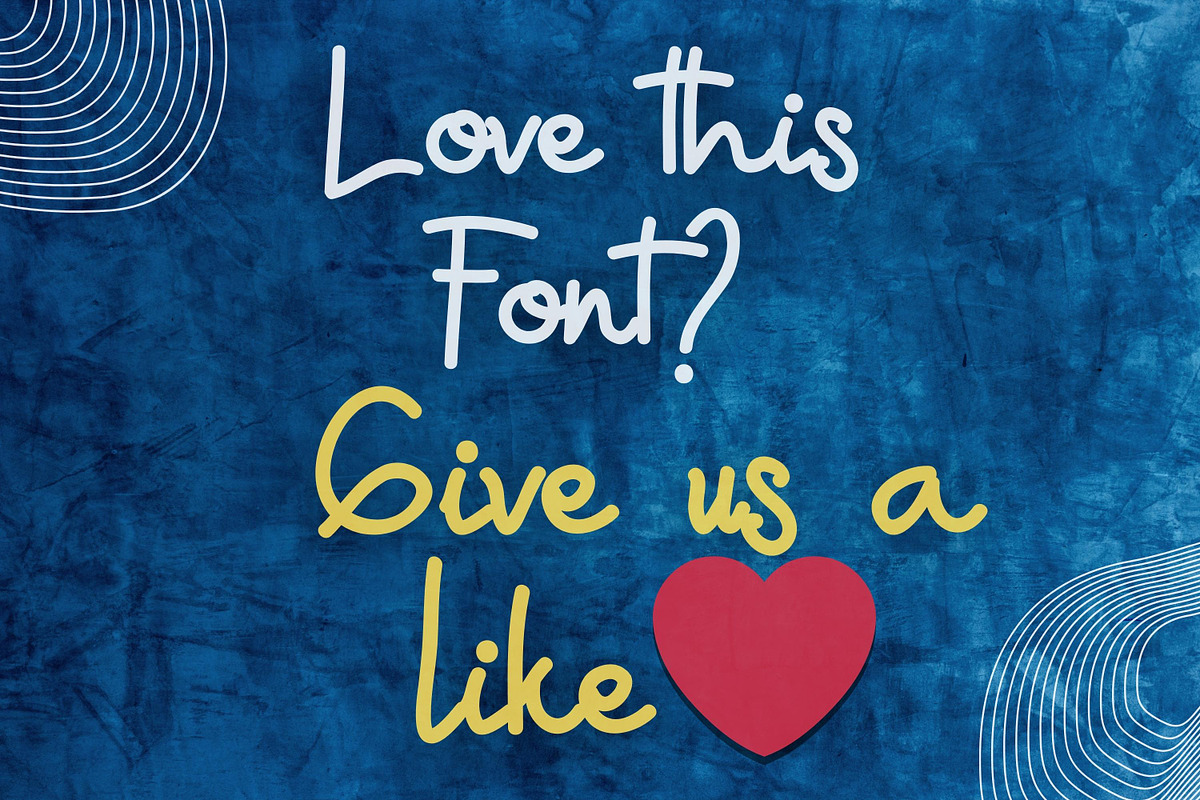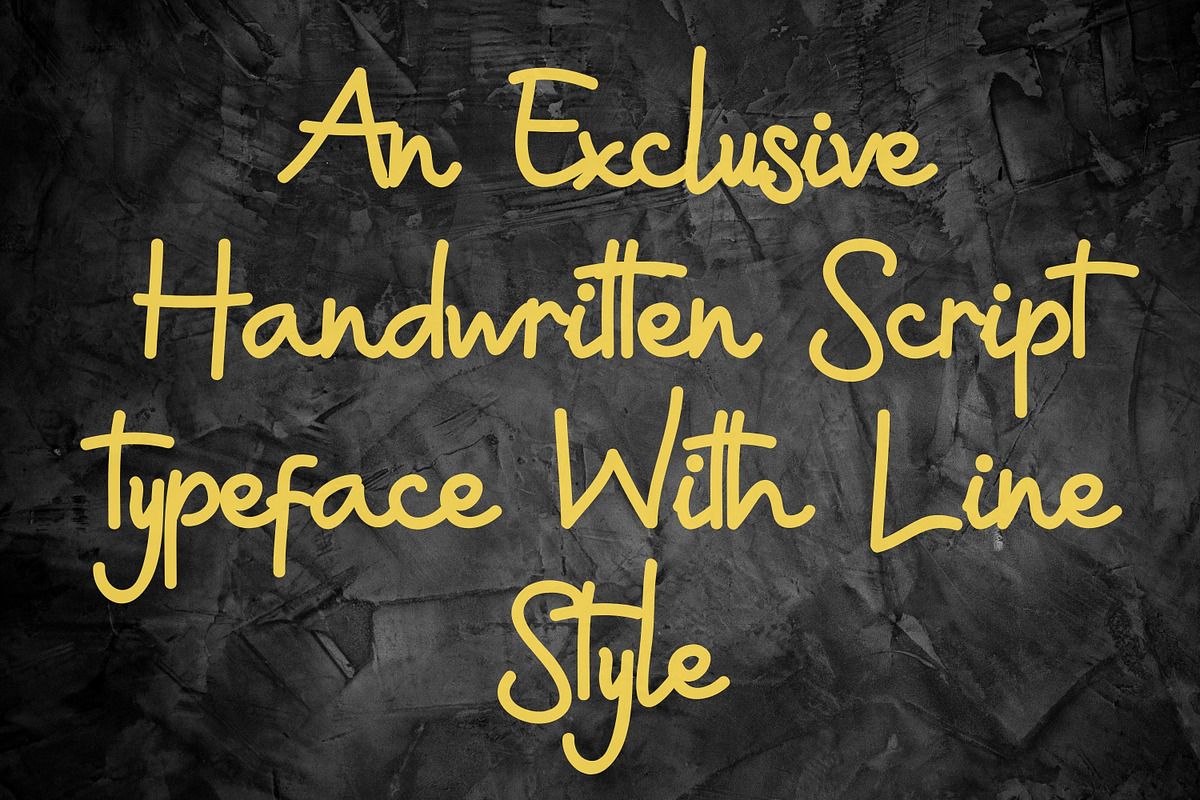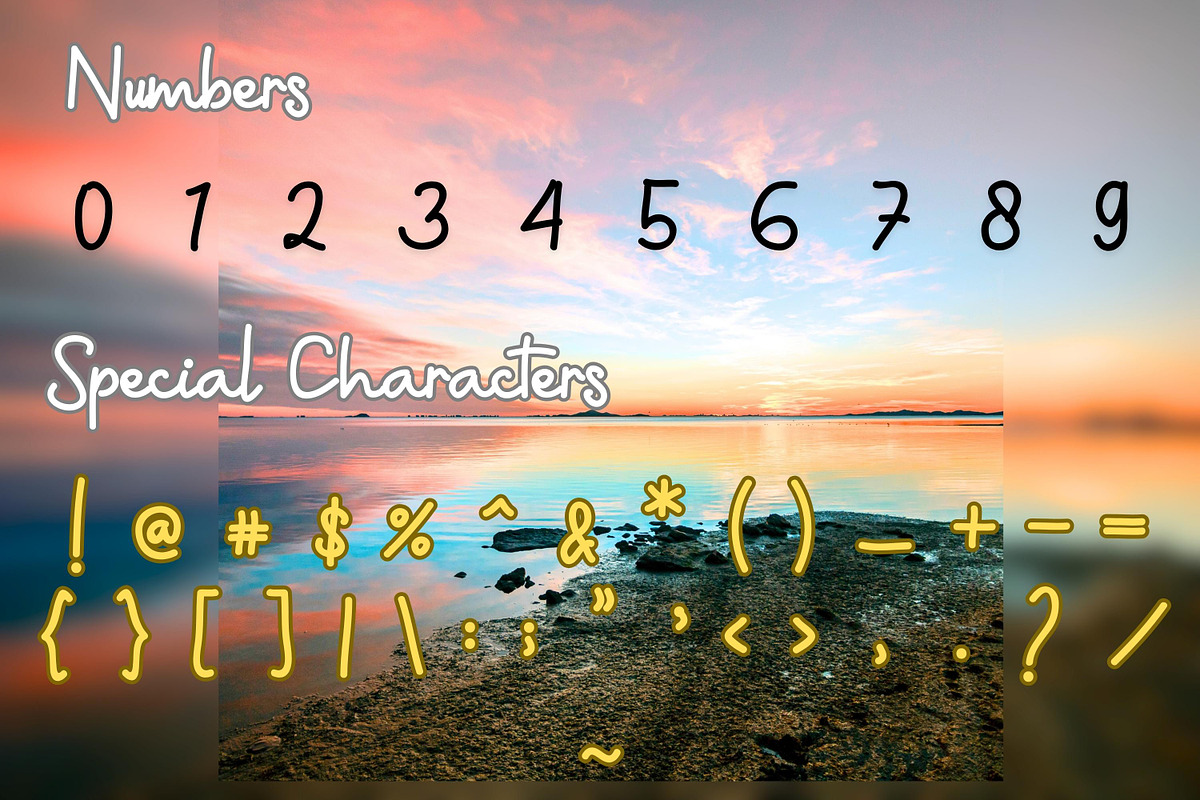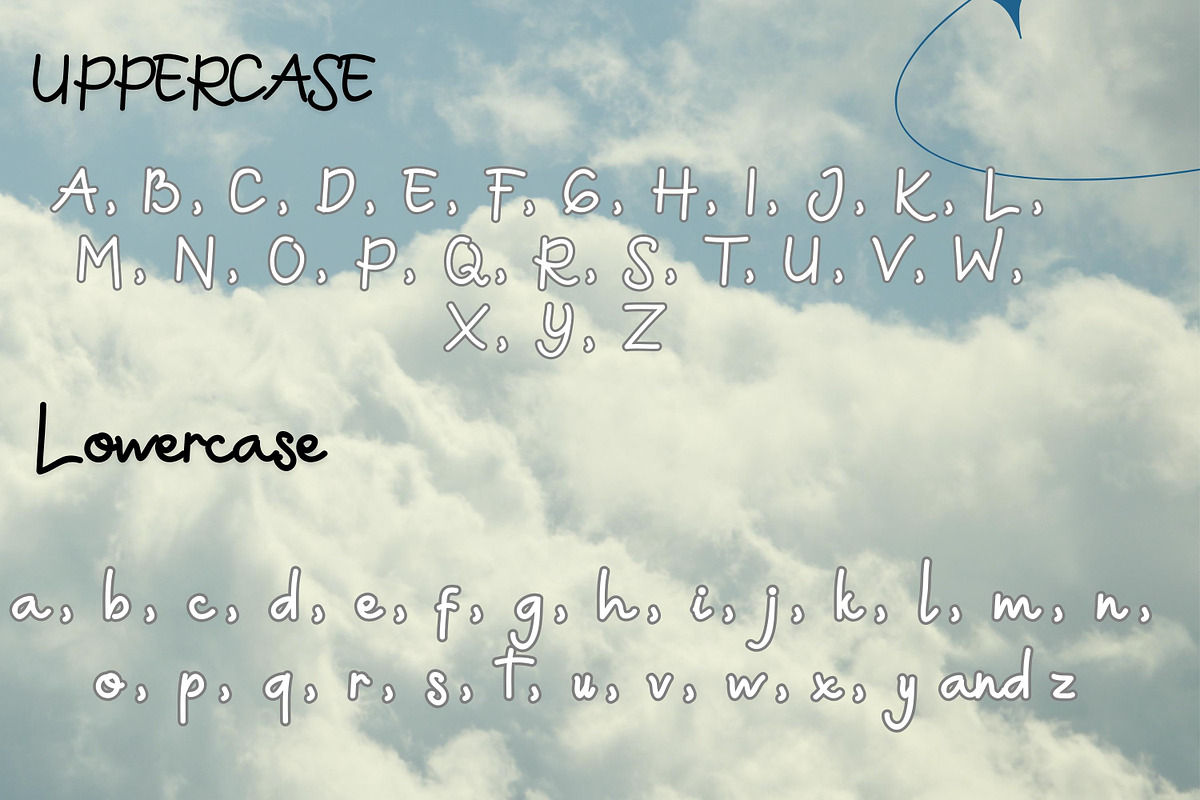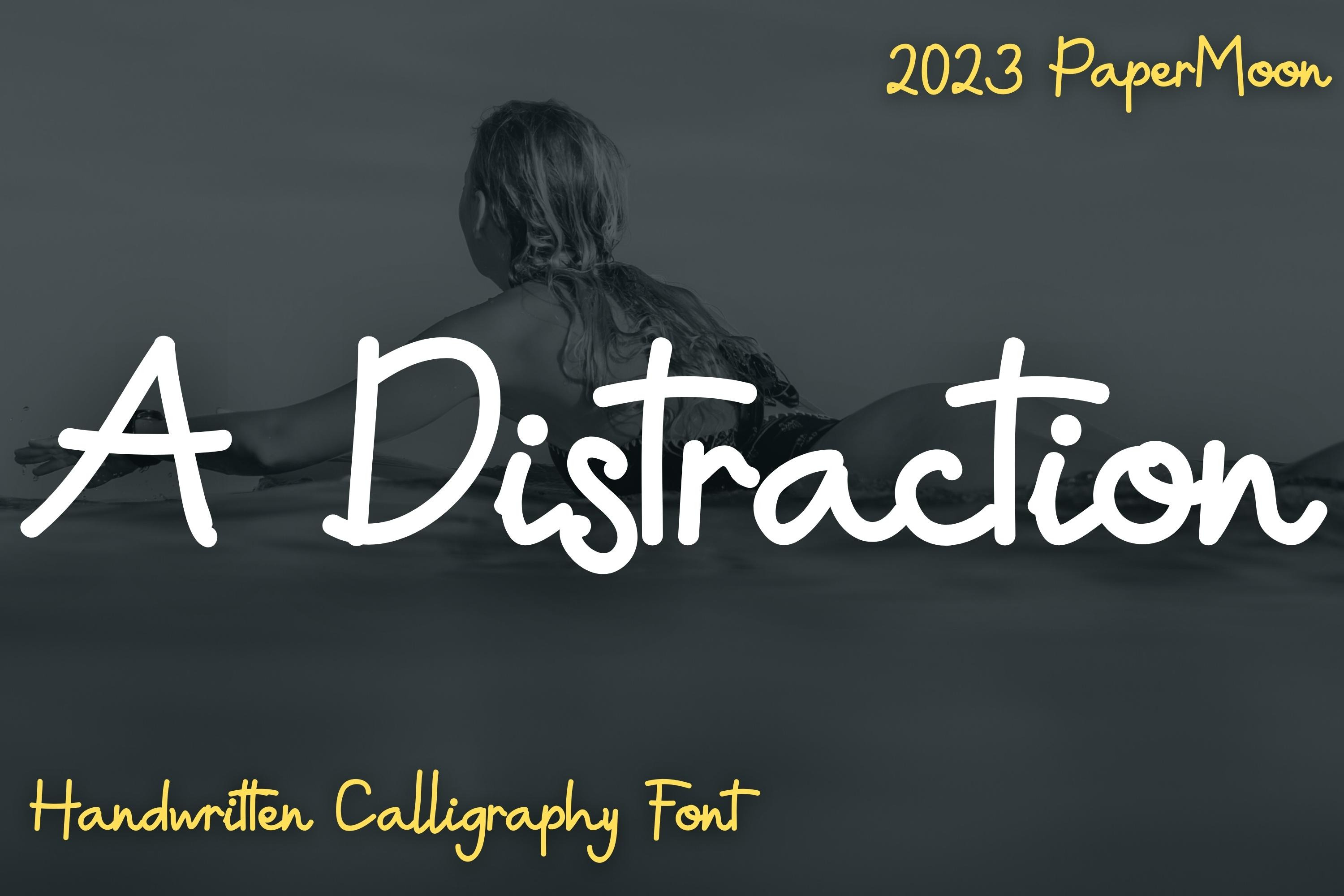
A Distraction: Handwritten Font
We're thrilled to introduce our latest font creation – A Distraction Font.
A Distraction is a charming handwritten script font, carefully crafted for a unique and distinctive look. Hailing from Indonesia, this font is the brainchild of the talented artists.
A Distraction Font boasts an exclusive handwritten script style with a clean, line-based design. It features a captivating character set with meticulous spacing and kerning, radiating an air of elegance, vintage appeal, style, sophistication, and classic charm.
This versatile font is perfect for a wide array of projects, including branding, logos, stationery, business cards, signage, flyers, brochures, and more. It seamlessly complements a variety of industries, from weddings and events to real estate, architecture, law firms, floristry, gardening, makeup artistry, travel, hotels, and the music world.